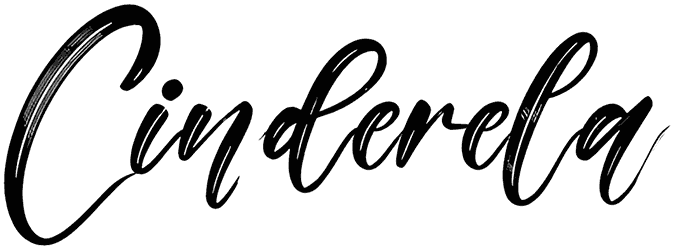
Cinderela Font
A script font such as Cinderela can tell the audience to expect an amazing end from comic covers, invitations, storybooks, or social media posts. To engage the audience with your work, this brush font in curved and rounded designs with two styles would be helpful to bring flexibility together with playfulness.